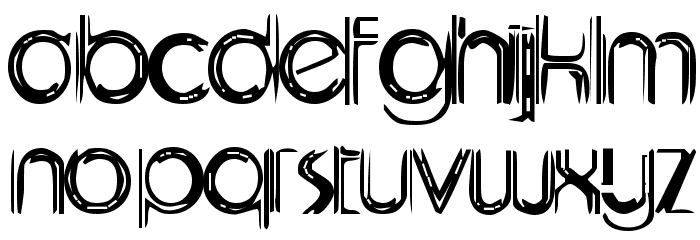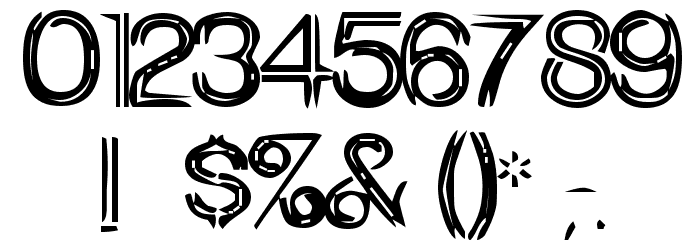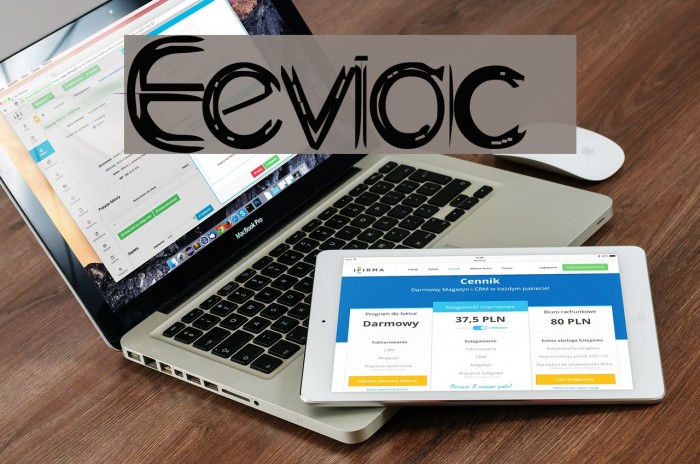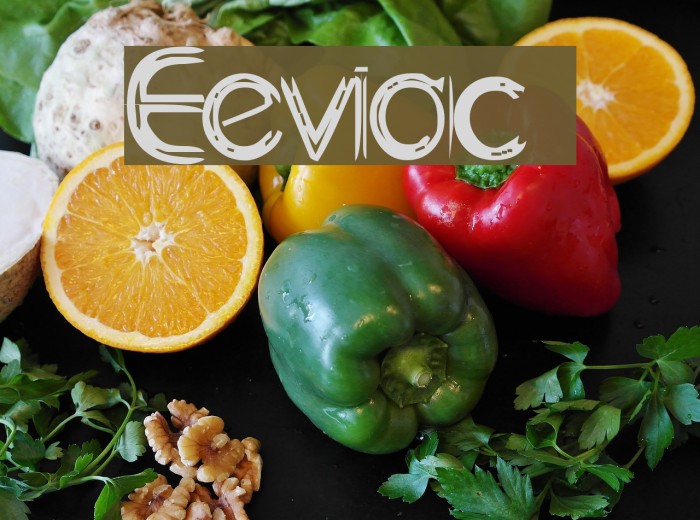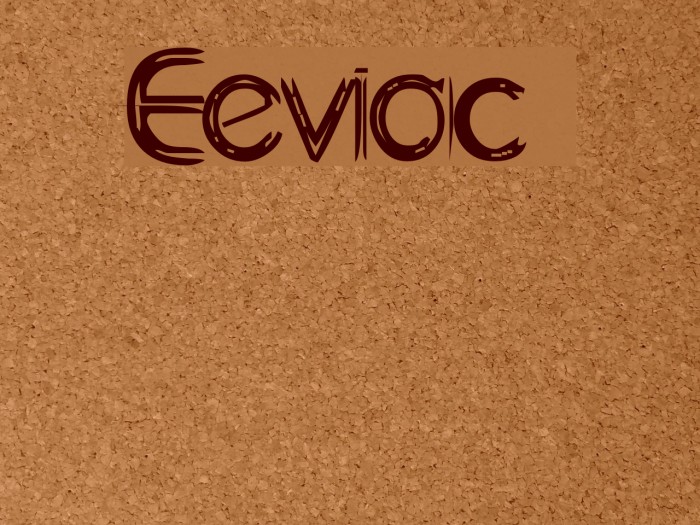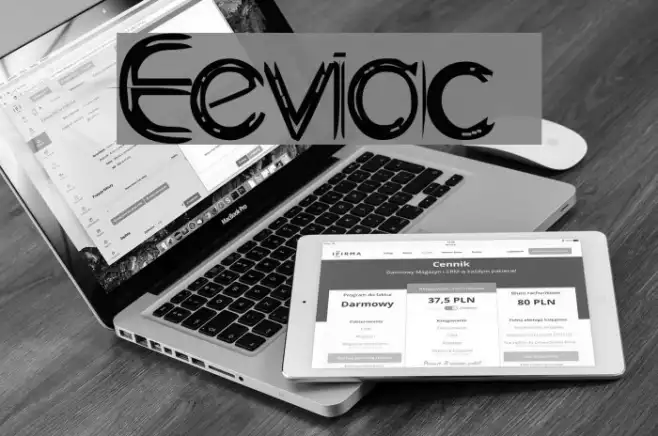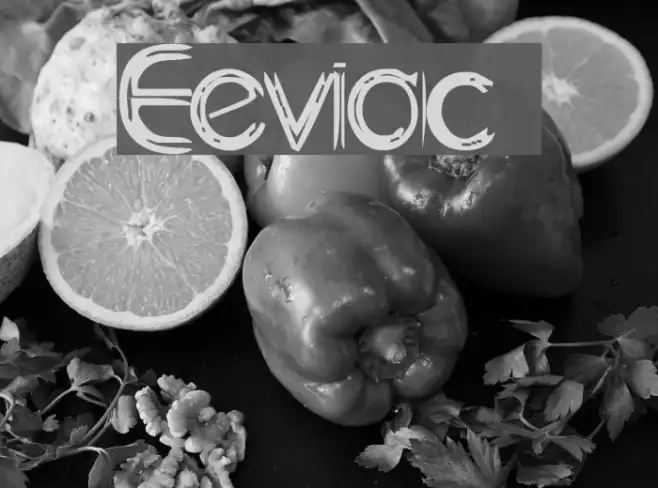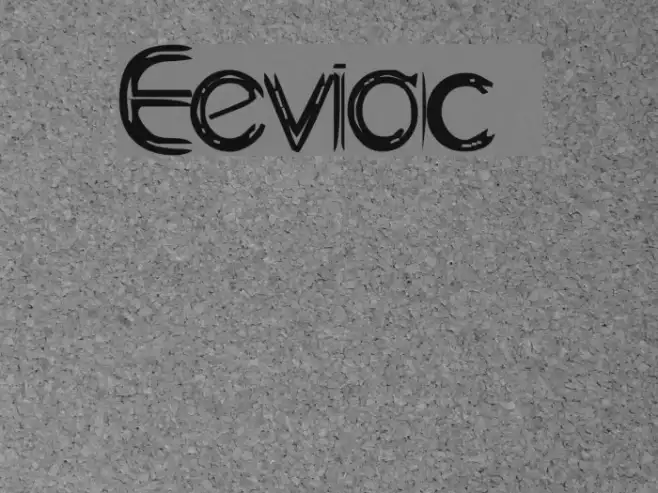
Eeviac Font
This font features a futuristic and decorative style with a unique blend of geometric shapes and intricate detailing. The characters are composed of bold, rounded lines with cut-out sections that create a dynamic and visually engaging appearance. The uppercase and lowercase letters maintain a consistent design, with the lowercase letters slightly more compact. The numerals are equally stylized, offering a cohesive look across all characters. Special characters follow the same design principles, ensuring uniformity throughout. This font's distinct style makes it ideal for projects that require a modern and eye-catching aesthetic.
A futuristic, decorative font with bold, geometric lines and intricate detailing.
- Proposed Projects: Ideal for sci-fi themed designs, modern branding, album covers, and creative posters.
- Overall Style: Futuristic, Decorative